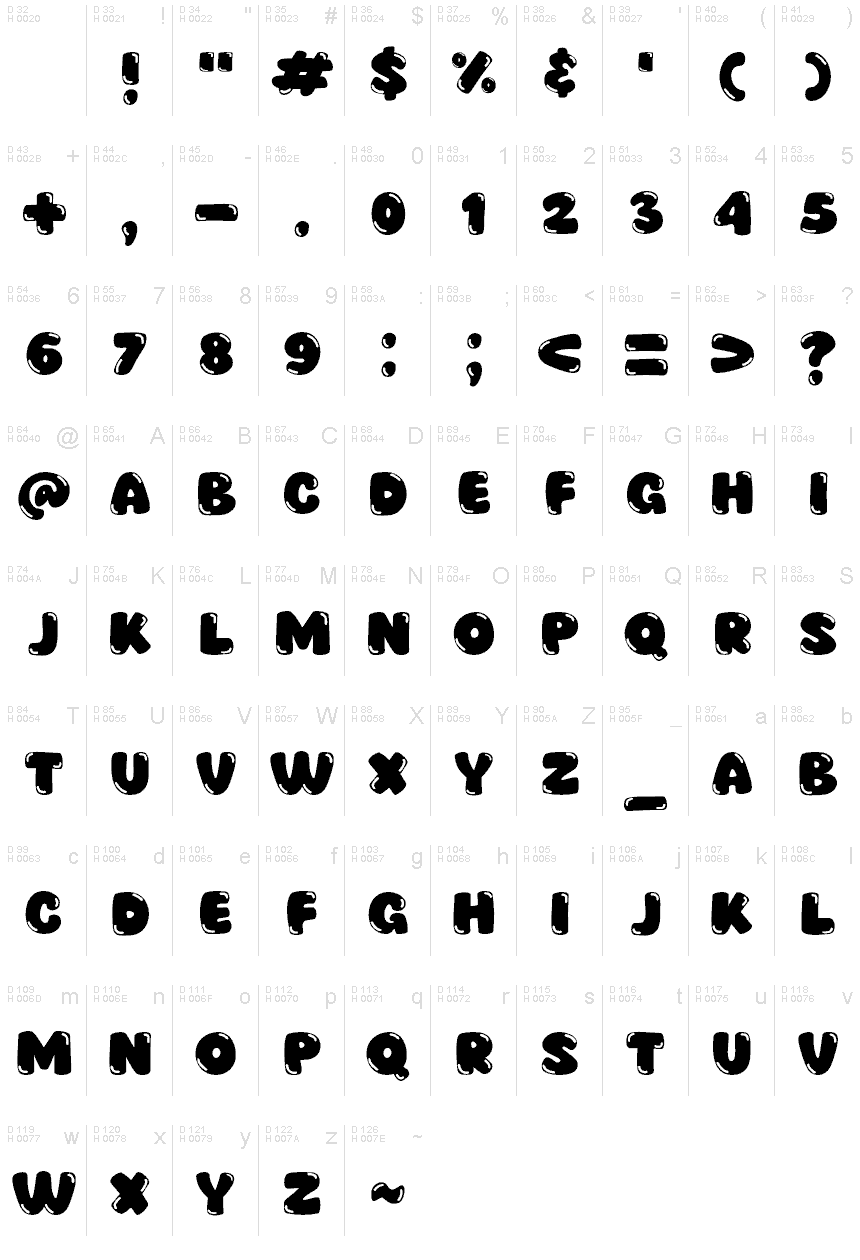
Popcat font designed by MJType is a bold cartoon display font with a playful and whimsical texture. Its retro-inspired, bubble-like forms create an eye-catching design that captures the essence of nostalgia and fun. With connections to 1970s advertising and pop culture graphics, it evokes a cheerful emotional impact suitable for entertainment-related uses.